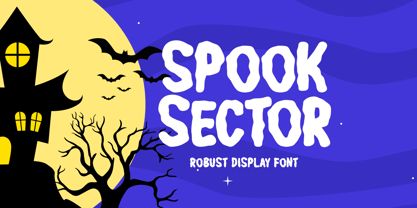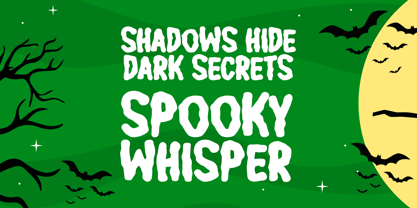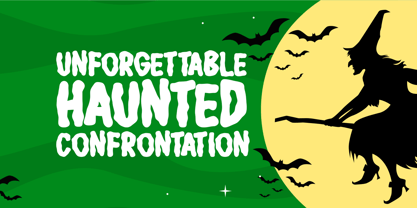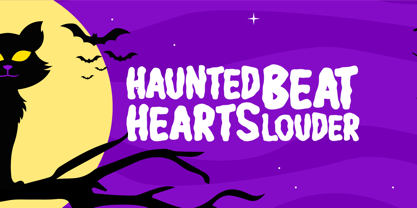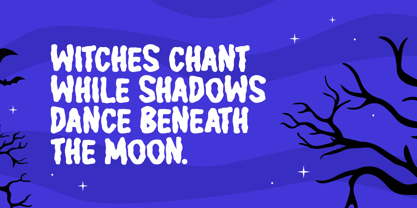
Spook Sector
by Seemly Fonts
The Spook Sector Font Family was designed by Md. Sohail Bhuiyan and published by Seemly Fonts. Spook Sector contains 1 styles. More about this family
Spook Sector is a bold and haunting display font designed to leave a lasting impression. With its strong letterforms and spooky character, it’s ideal for a variety of creative uses, ranging from branding and logos to apparel, web headers, flyers, posters, music covers, and themed merchandise. Whether you're working on Halloween projects or edgy urban designs, this font brings a powerful presence to every layout.
Designers: Md. Sohail Bhuiyan
Foundry: Seemly Fonts